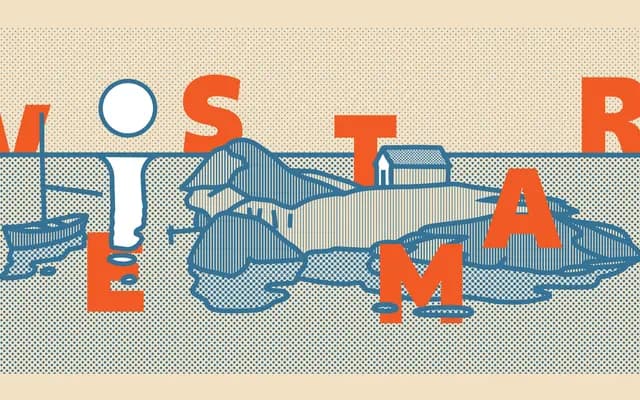
Vestmar
Monokrom · Sindre Bremnes · 2020
A humanist sans by Sindre Bremnes that fuses engineered rationalism with subtle reverse-contrast inflections drawn from automotive design and Norwegian road sign typography.
Vestmar takes the skeletal logic of DIN and Frutiger's engineering types and pushes it somewhere unexpected: bulbous forms that swell inwards, producing thick strokes where thin ones are conventional and asymmetry where symmetry is assumed. Influences range from Evert Bloemsma and Roger Excoffon's reverse-contrast experiments to Walter Becchia's automotive bodywork, all filtered through a restrained Nordic sensibility. Seven weights from Thin to Black, each with an italic, give the family broad range for editorial and identity work without ever raising its voice.
Vestmar draws from engineered and rational modernist letterforms via DIN and Frutiger references, but introduces organic, reverse-contrast tendencies and open apertures that align it with humanist sans rather than pure geometric or grotesque traditions.